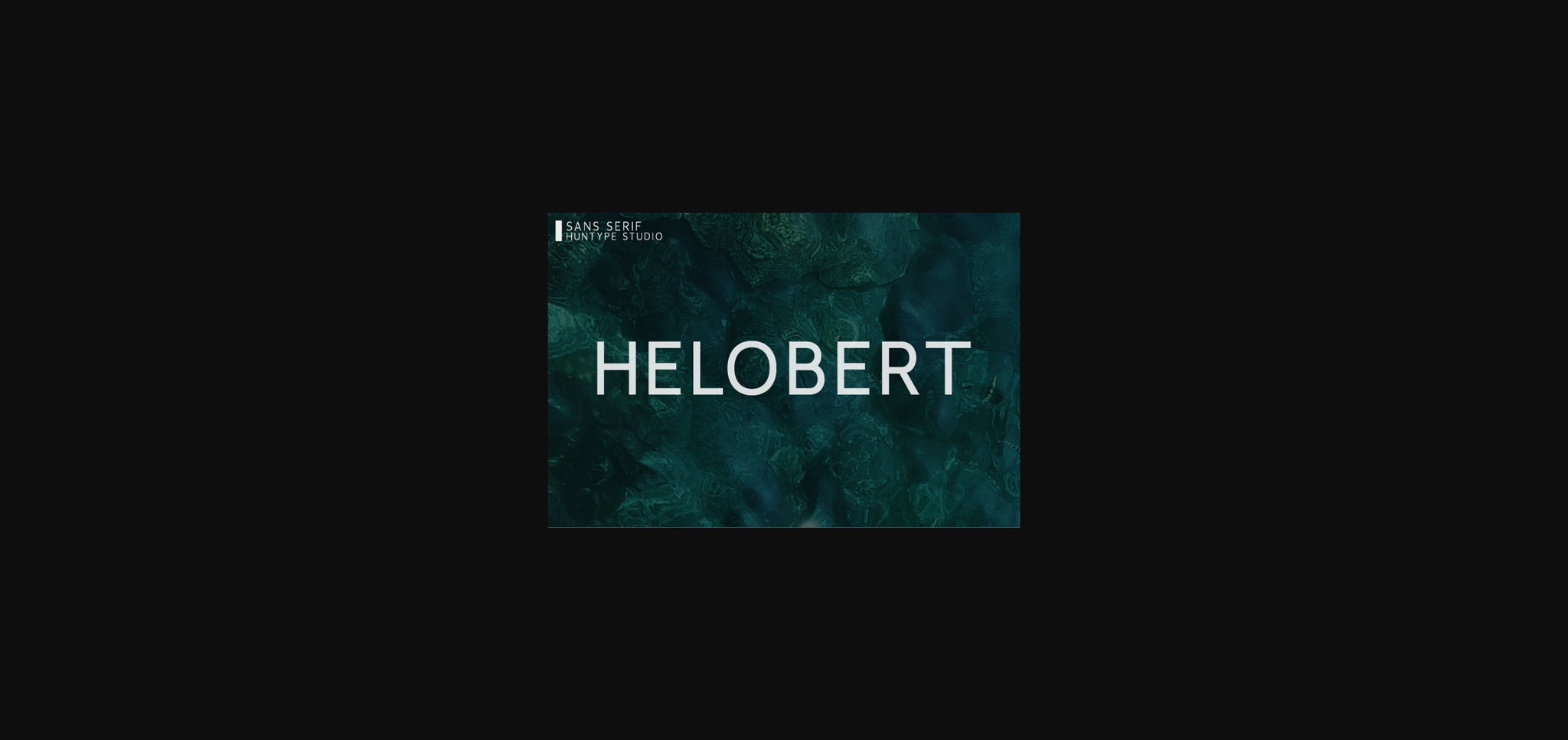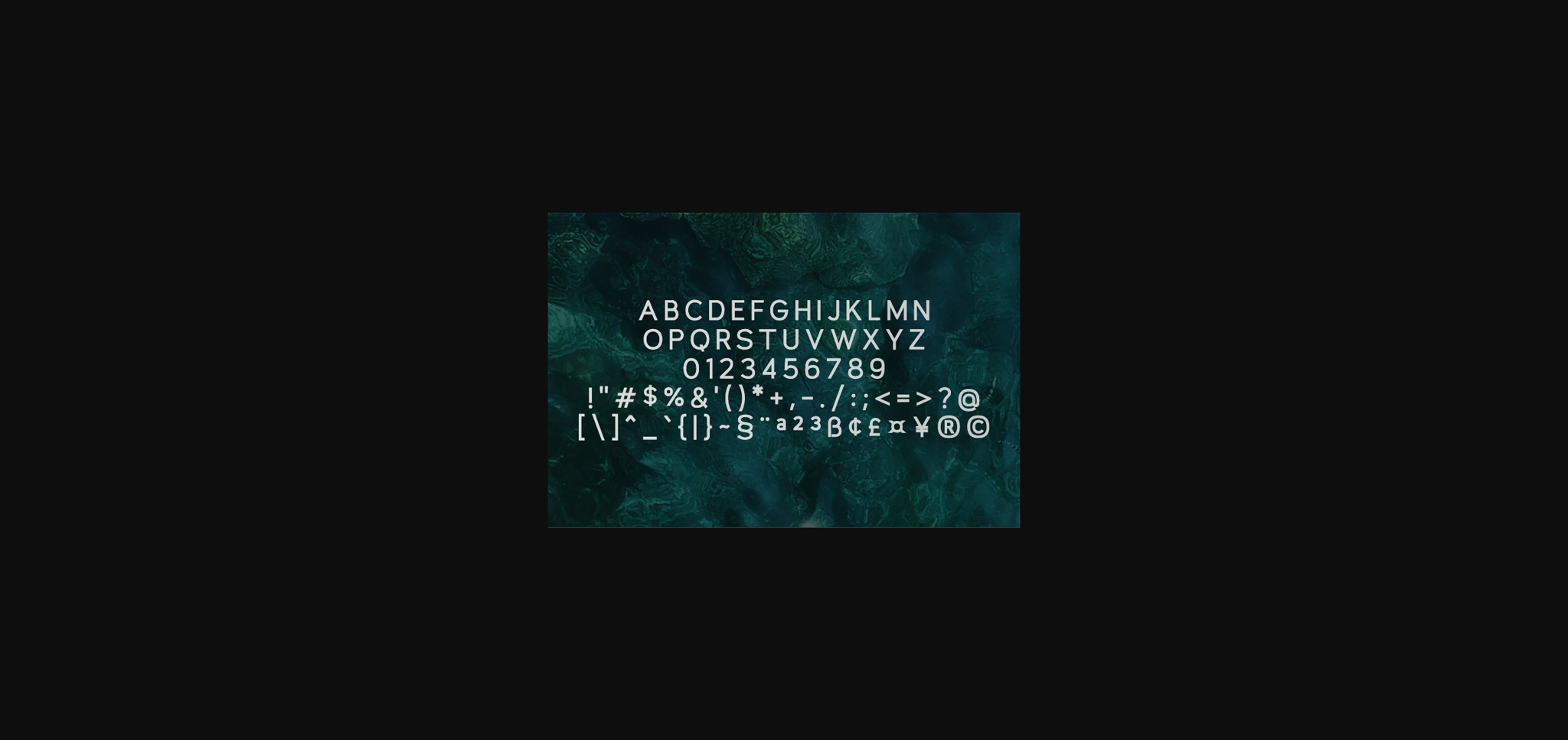
HomeSans Serif FontsHelobert Font Sans Serif Fonts Helobert Font FacebookTwitterPinterestWhatsApp 1 of 4 ... Helobert Font Poster 2... Helobert Font Poster 3... Helobert Font Poster 4... About Helobert Font Helobert is a modern sans serif with a strong personality. Use Helobert to achieve an exquisite, yet subtle look and maximum versatility. DOWNLOAD NOW People also explored Shenzhen Industrial Winterheart Font Spring Flower Font No Seven Captain Brown Font Charlotte Script Font Broomstx Font Study Font Jodie Badiston Font 171 0 TagsHelobert Font Previous articleBoverley FontNext articlePromule Font LEAVE A REPLY Cancel reply Comment: Please enter your comment! Name:* Please enter your name here Email:* You have entered an incorrect email address! Please enter your email address here Website: Save my name, email, and website in this browser for the next time I comment. Personal Use Free Ciggs Personal Use Free Read more about this font Wintersoul Personal Use Free Read more about this font Astagina Signature Personal Use Free Read more about this font The Fourth Avenue Personal Use Free Read more about this font BLOG The 10 Best Handwriting Fonts to Add Personality to Your Designs 10 of the Best Handwriting Fonts for Adding Personality to Your Designs There will undoubtedly be no other better choice than handwriting fonts to give... Free vs Paid Fonts: Why Investing in Premium Fonts Is Worth It Best Fonts for YouTube Videos: Make Your Thumbnails Stand Out Free Fonts Risk: Why Free Fonts Can Be Dangerous for Designers